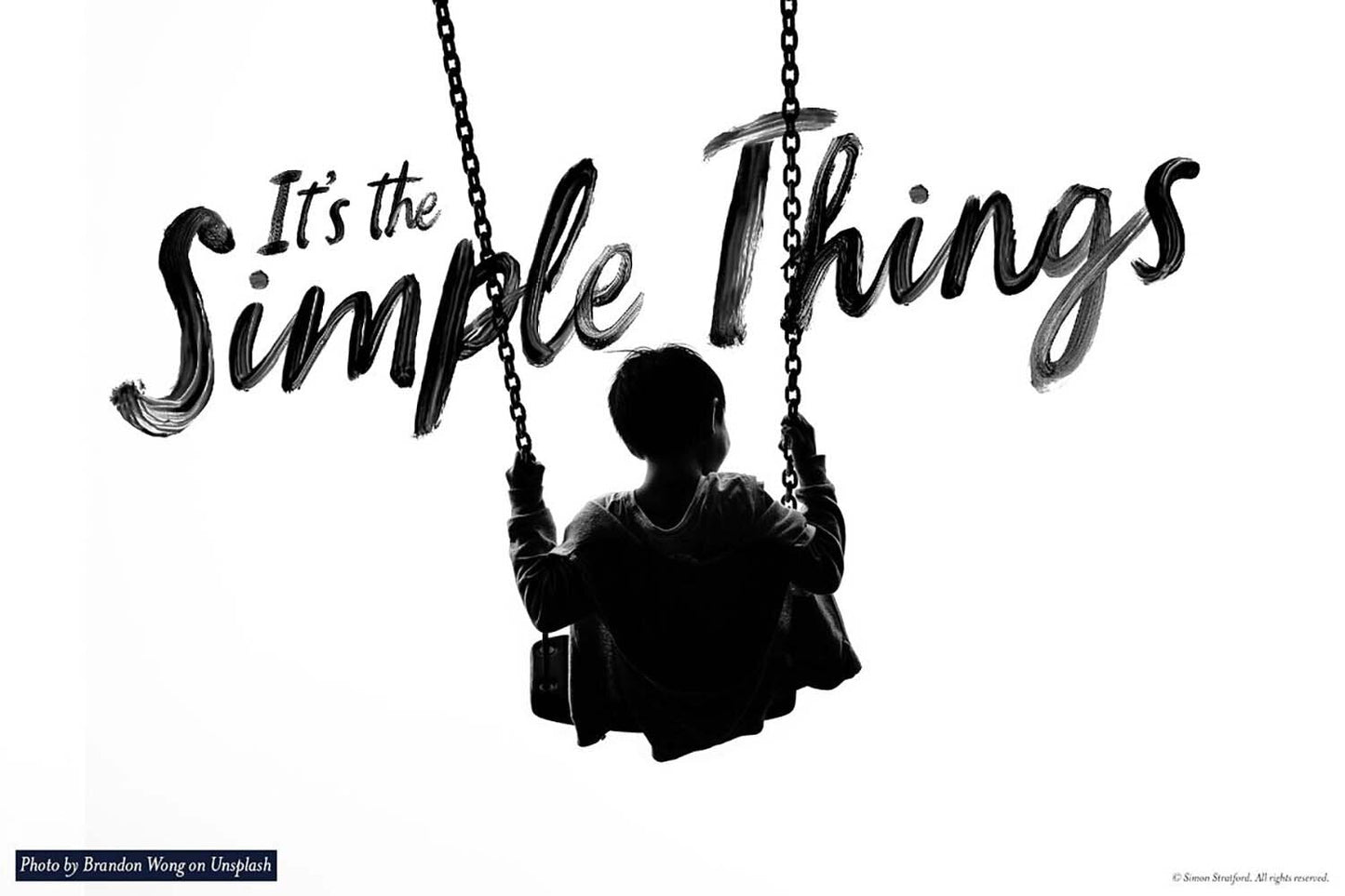
Brush lettering should look like somebody held a brush, moved quickly and knew when to stop. It should have pressure, speed, texture and the occasional beautifully imperfect edge. Wild Irish Rose was painted to keep all of that. It is a hand-painted brush script font for designers who want the energy of real lettering without repainting every headline, label or social post from scratch.
Too clean is too easy
A brush font can be perfectly smooth.
It can also be perfectly dull.
Remove every stray edge, variation and change of pressure and you remove the reason for choosing brush lettering in the first place. You are left with something that resembles paint but behaves like plastic.
Wild Irish Rose keeps the evidence.
The movement. The texture. The moments where the brush moved quickly and the paint did something more interesting than expected.
What is brush lettering?
Brush lettering is the process of drawing letterforms using a brush or brush-like tool. Changes in pressure create thick and thin strokes, while the speed, angle and movement of the brush give the lettering its rhythm and personality.
A brush lettering font turns that handmade character into reusable type. You can type a headline, change the wording and try different layouts without painting the entire alphabet again every time.
At least, that is the idea.
The danger is that digitising the work can clean away everything that made the original lettering worth keeping.
Meet Wild Irish Rose
Wild Irish Rose began with real paint and a real brush. I painted the letters quickly and deliberately avoided overthinking every stroke.
That speed matters.
Move too slowly and brush lettering becomes cautious. Every curve starts asking permission. Every stroke worries about what the next stroke might think.
Wild Irish Rose has no interest in that.
It is energetic, contemporary and confidently imperfect. The letters feel spontaneous because the original lettering was spontaneous. It was created by hand first and turned into a working font afterwards.
Why real brush texture matters
Most traditional vector fonts reduce letters to clean outlines filled with a single flat colour. That is brilliant for thousands of things. Preserving complicated paint texture is not one of them.
Wild Irish Rose uses the OpenType SVG colour-font format to retain far more of the original painted detail, including tonal variation, transparency and imperfect brush edges.
It does not imitate brush lettering.
It uses the actual lettering.
The result sits somewhere between a typeface and a collection of individually painted letterforms. You still get the convenience of typing, but the finished words retain the visual energy of handmade artwork.
Where does Wild Irish Rose work best?
Brush lettering is strongest when it is allowed to lead. Wild Irish Rose is designed for short, visible messages rather than the terms and conditions at the bottom of an insurance form.
Use it for:
- Brand names and expressive logos
- Packaging and product labels
- Fashion and beauty campaigns
- Posters and editorial headlines
- Book and magazine covers
- Wedding stationery and invitations
- Social-media graphics
- Short statements that need some life in them
It looks particularly effective over photography, against simple blocks of colour or beside a restrained sans-serif typeface.
Give it room to misbehave
A bold brush lettering font does not need more decoration. It is already doing the interesting bit.
Keep the rest of the design relatively quiet. Give the words room, use a clear supporting typeface and avoid cramming the lettering into a box that is two sizes too small.
Large type. Short message. Plenty of space.
That is usually enough.
Brush lettering or brush script?
The two terms overlap, but they are not exactly the same.
Brush lettering describes the wider process of drawing letters with a brush. The finished style might be connected, disconnected, formal, rough, upright or completely unruly.
Brush script usually describes lettering influenced by joined or flowing handwriting.
Wild Irish Rose belongs comfortably in both categories. It has the movement of a brush script and the visible painted character people expect from authentic brush lettering.